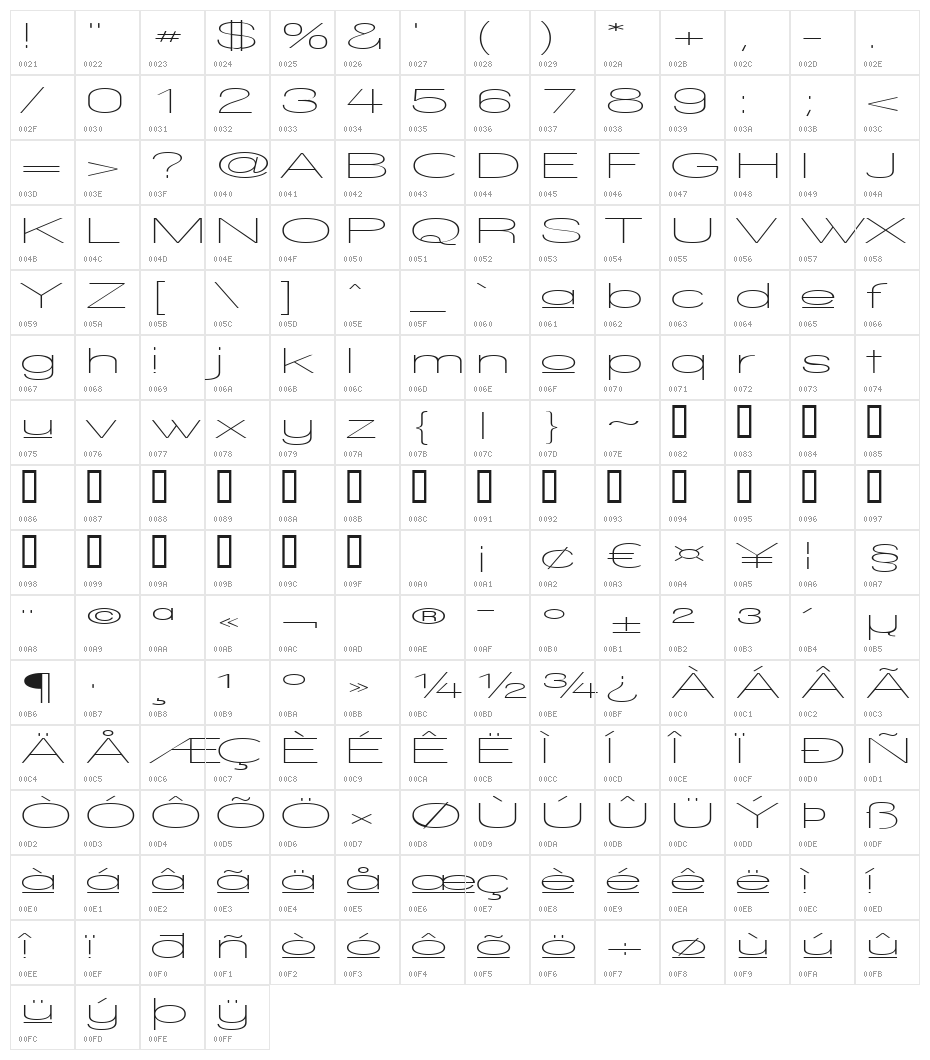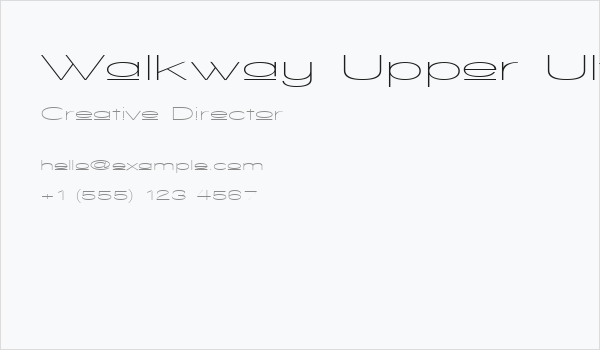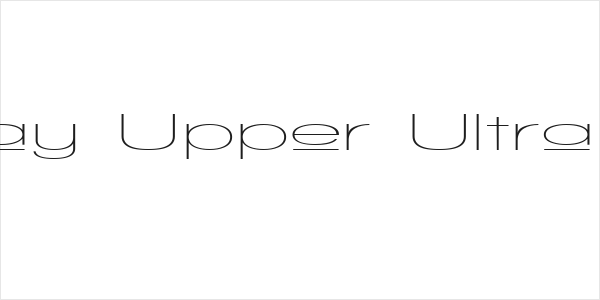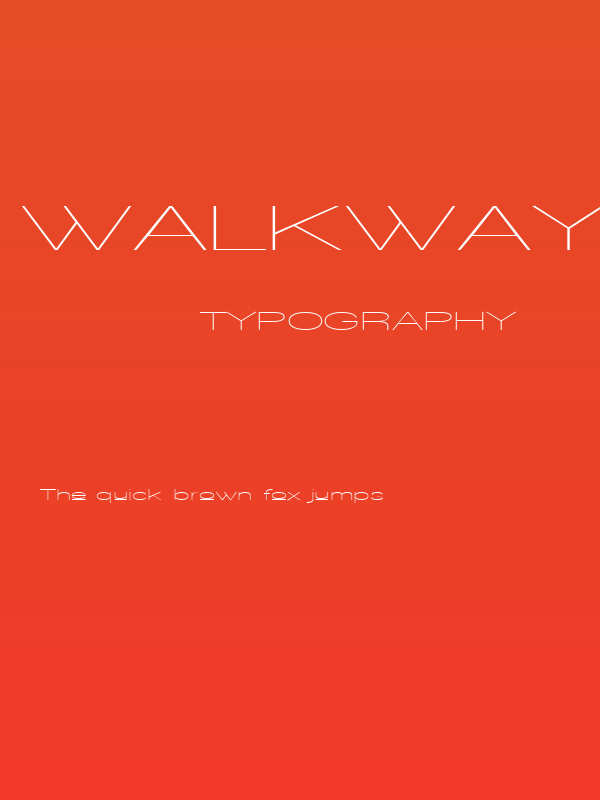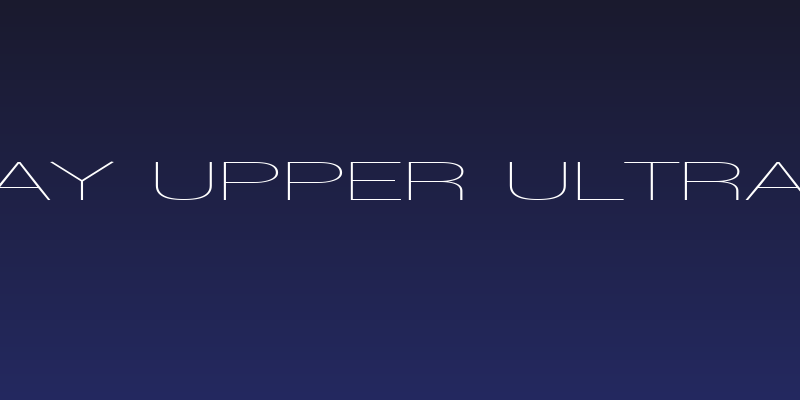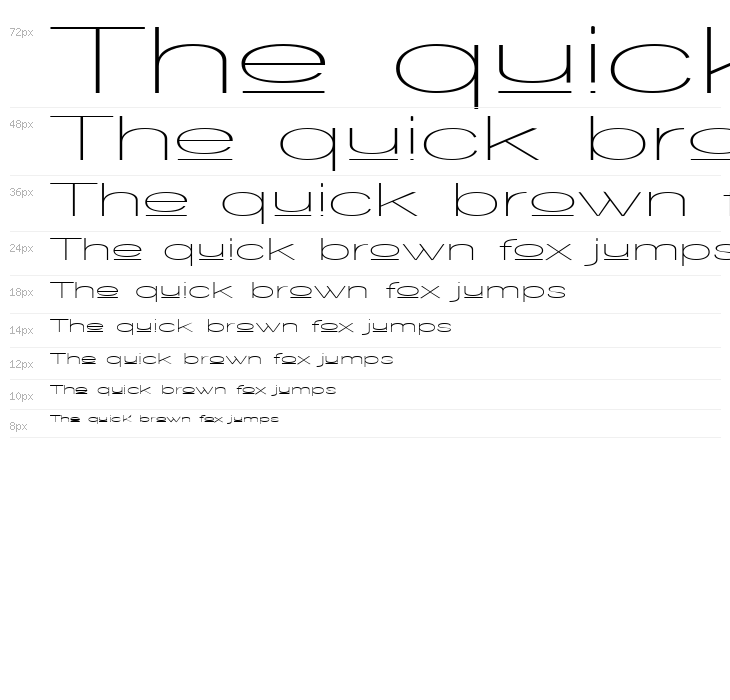
Walkway Upper UltraExpand Font
Walkway Upper UltraExpand Description
This font features a sleek and ultra-modern design with an expanded width, giving it a unique and airy appearance. The characters are formed with thin, consistent strokes, creating a minimalist and futuristic look. The uppercase and lowercase letters maintain a uniform height, enhancing readability while adding a touch of elegance. The numerals and special characters are crafted with the same attention to detail, ensuring a cohesive visual experience. This font's clean lines and open forms make it ideal for contemporary design projects.
| Proposed Projects | Ideal for modern branding, tech-related projects, futuristic designs, and minimalist posters. |